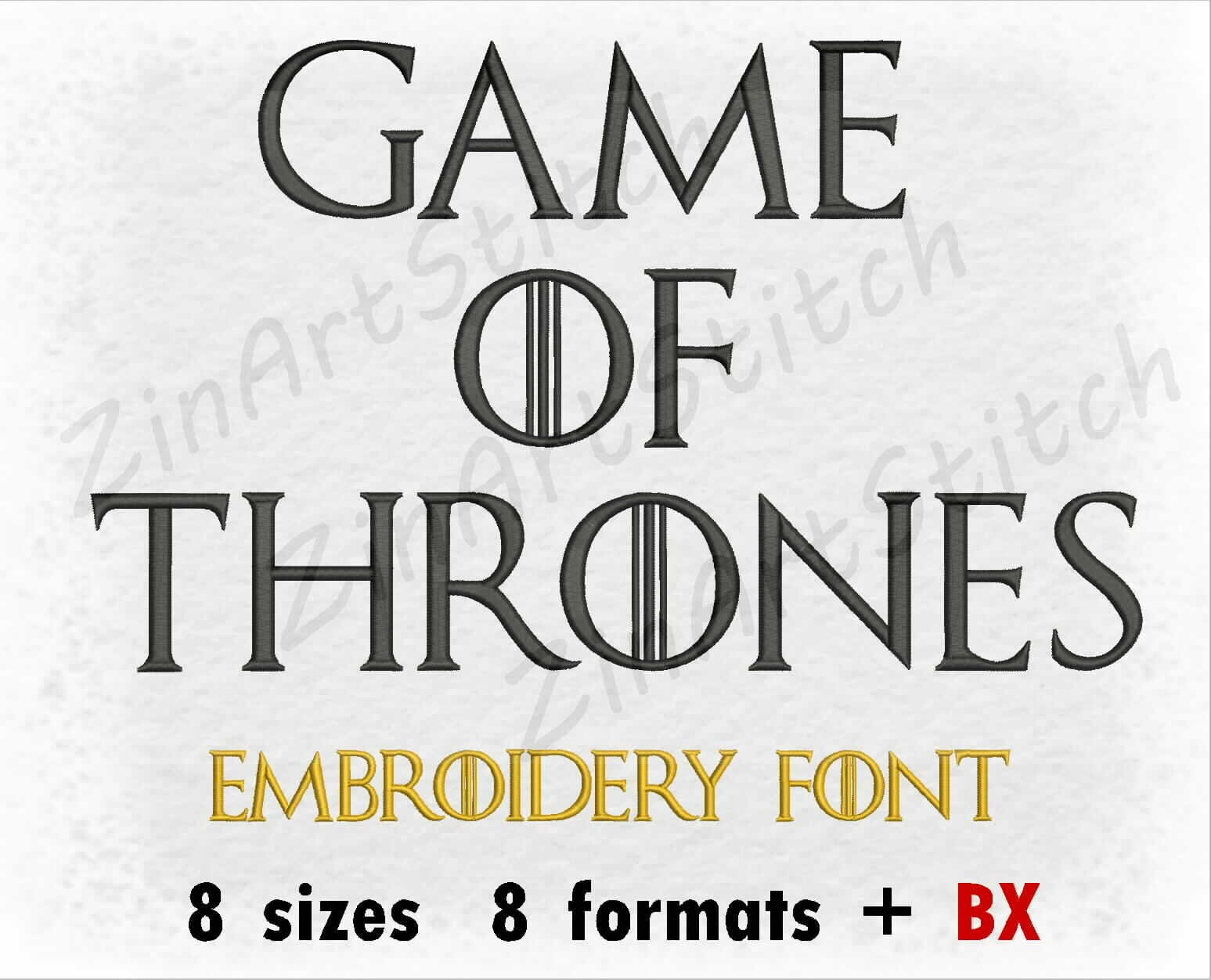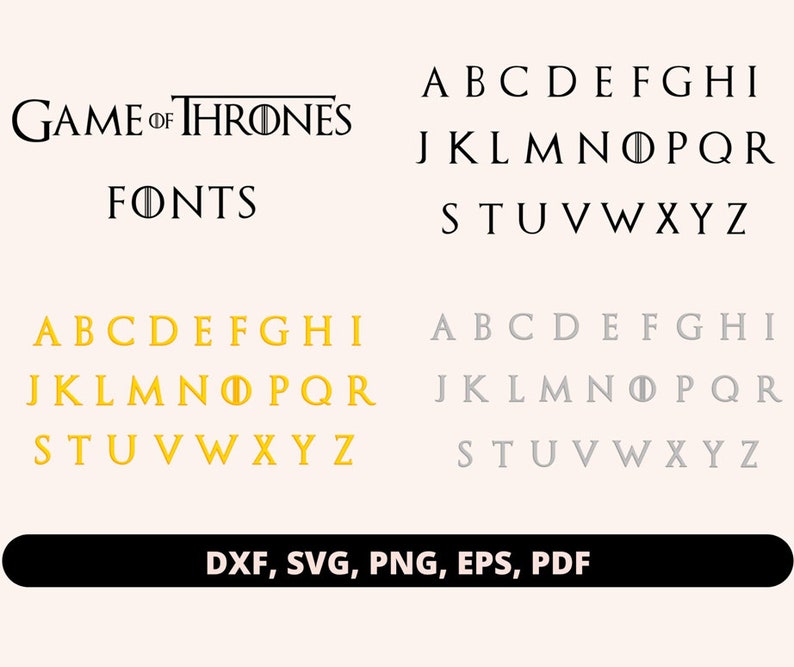
Game Of Thrones Font Maker . With our game of thrones 3d text generator,. Game of thrones is a gothic, modern font designed by charlie samways. Are you ready to bring the magic and grandeur of westeros into your design projects? The font is licensed as free for personal use. Create captivating designs inspired by the iconic game of thrones series or any movie, film, or game. Looking for game of thrones fonts? Every font is free to download! Game of thrones font generator & download is available free at fontbolt. Click to find the best 10 free fonts in the game of thrones style. Unleash the power of our font generator to transform. Generate cool and amazing fonts by using game of thrones font generator. Create epic game of thrones inspired text effects with our font style text effect generator. You can download and use the font free for personal projects. Try our text generator and create cool graphics for game of thrones font, then you can save the font image to your pc, mac, linux, ios and android device.
Game Of Thrones Free Download Game Of Thrones Font Maker The font is licensed as free for personal use. With our game of thrones 3d text generator,. Create epic game of thrones inspired text effects with our font style text effect generator. Unleash the power of our font generator to transform. Click to find the best 10 free fonts in the game of thrones style. Try our text generator and. Game Of Thrones Font Maker.
Game of Thrones Text Effect by Hyperpix on Dribbble Game Of Thrones Font Maker Game of thrones is a gothic, modern font designed by charlie samways. Every font is free to download! Are you ready to bring the magic and grandeur of westeros into your design projects? Try our text generator and create cool graphics for game of thrones font, then you can save the font image to your pc, mac, linux, ios and. Game Of Thrones Font Maker.
Game of Thrones Font Eps Png Pdf Dxf Svg Etsy Game Of Thrones Font Maker Looking for game of thrones fonts? Unleash the power of our font generator to transform. Are you ready to bring the magic and grandeur of westeros into your design projects? Create epic game of thrones inspired text effects with our font style text effect generator. With our game of thrones 3d text generator,. Generate cool and amazing fonts by using. Game Of Thrones Font Maker.